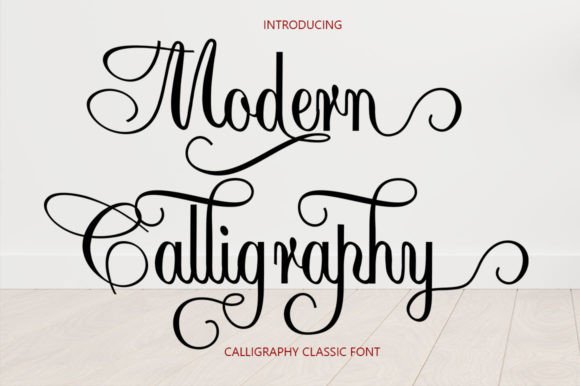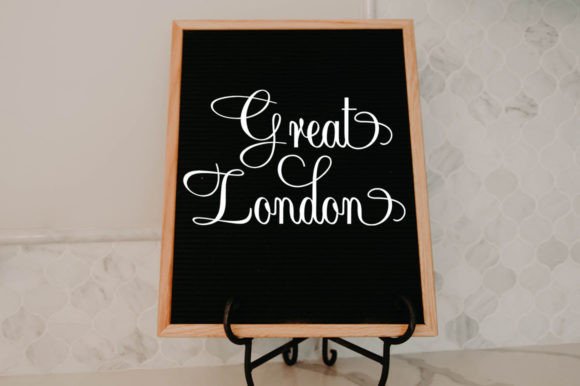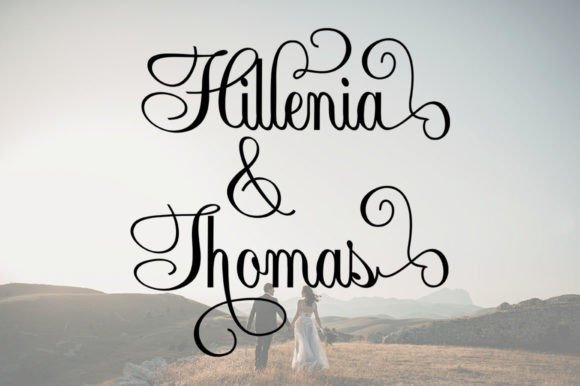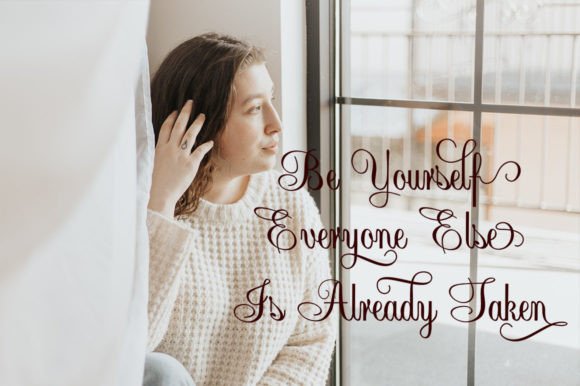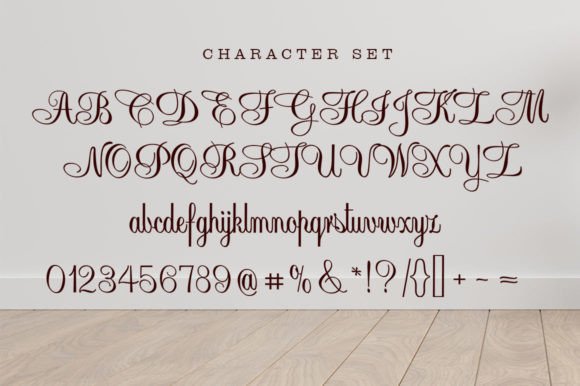
About Modern Calligraphy Font
Introducing “Modern Calligraphy” – Your Dazzling and Exquisitely Detailed Script Font!
Prepare to be captivated by “Modern Calligraphy,” a font that exudes elegance and sophistication in every stroke. This meticulously crafted script font is a true work of art, making it an invaluable addition to your font library. Regardless of your creative project’s theme or purpose, “Modern Calligraphy” possesses the power to elevate and enhance every creation with its sheer beauty.
What sets “Modern Calligraphy” apart is not just its breathtaking design but also its practicality. This font is PUA encoded, granting you effortless access to its extensive range of glyphs and swashes. This feature gives you the creative freedom to personalize and customize your designs, ensuring that they stand out with a unique and exquisite touch.
Imagine using “Modern Calligraphy” to adorn wedding invitations with timeless elegance, create mesmerizing branding materials, design eye-catching social media graphics, or craft a stunning logo that leaves a lasting impression. The possibilities are endless, and “Modern Calligraphy” is here to help you transform your creative vision into reality.
Whether you’re a seasoned designer or someone new to the world of typography, “Modern Calligraphy” is a font that will inspire and elevate your work to new heights. It combines classic beauty with modern practicality, making it a must-have for all your design needs.